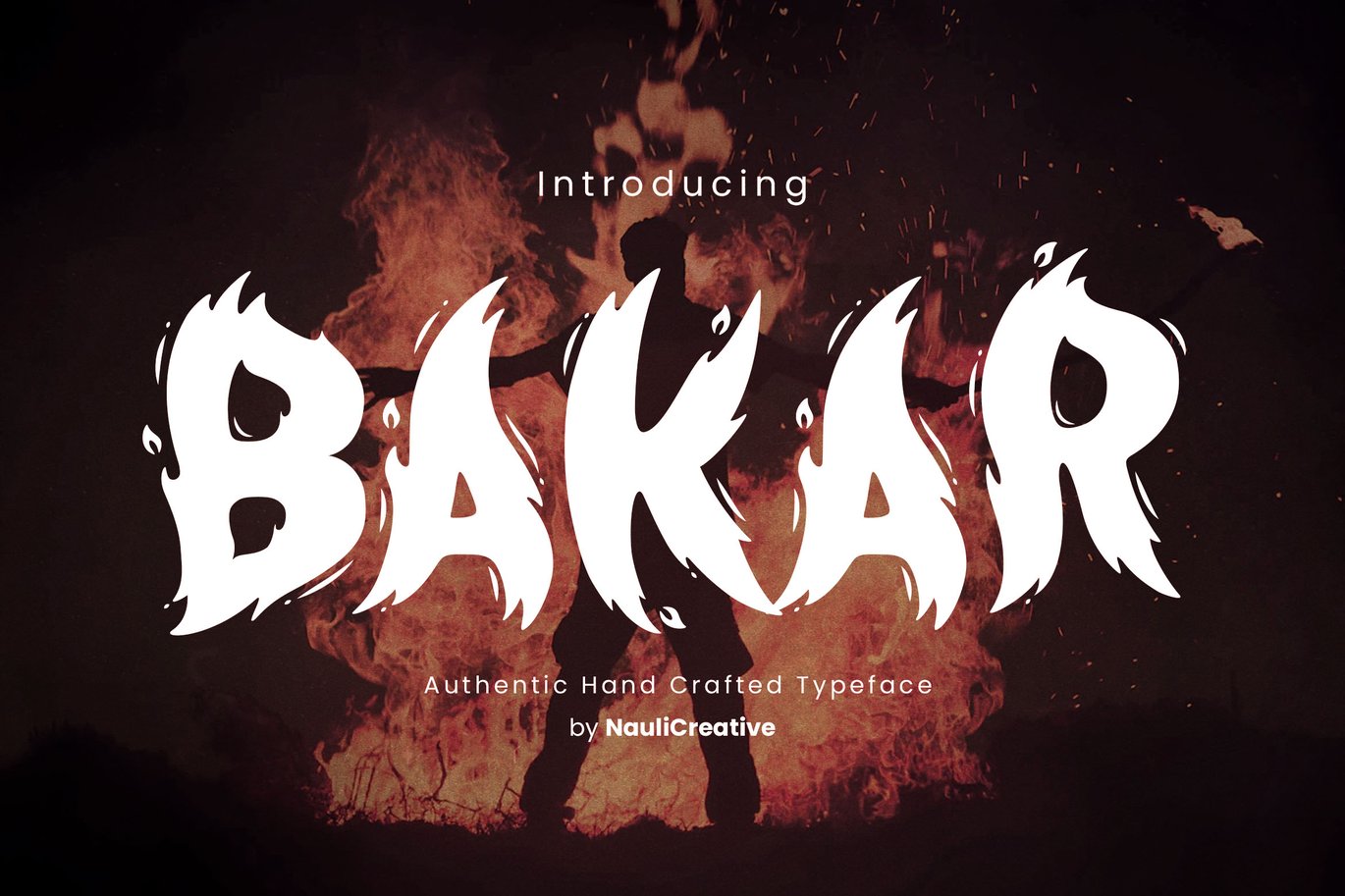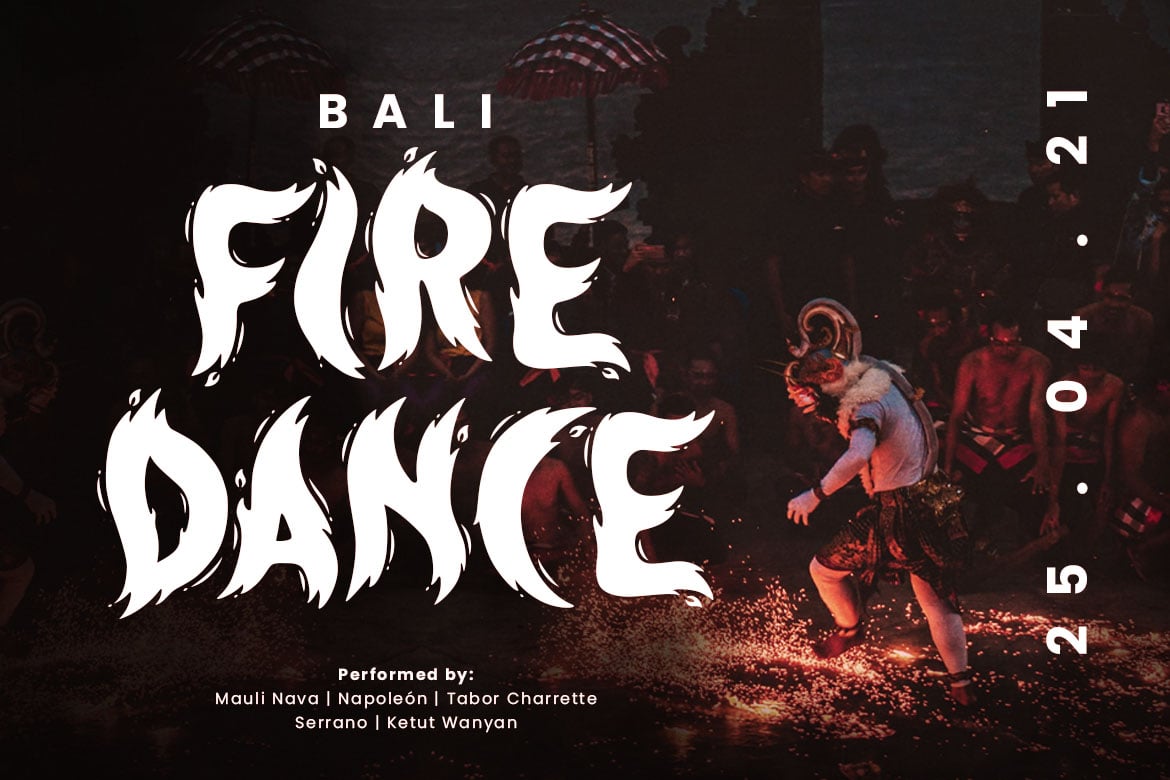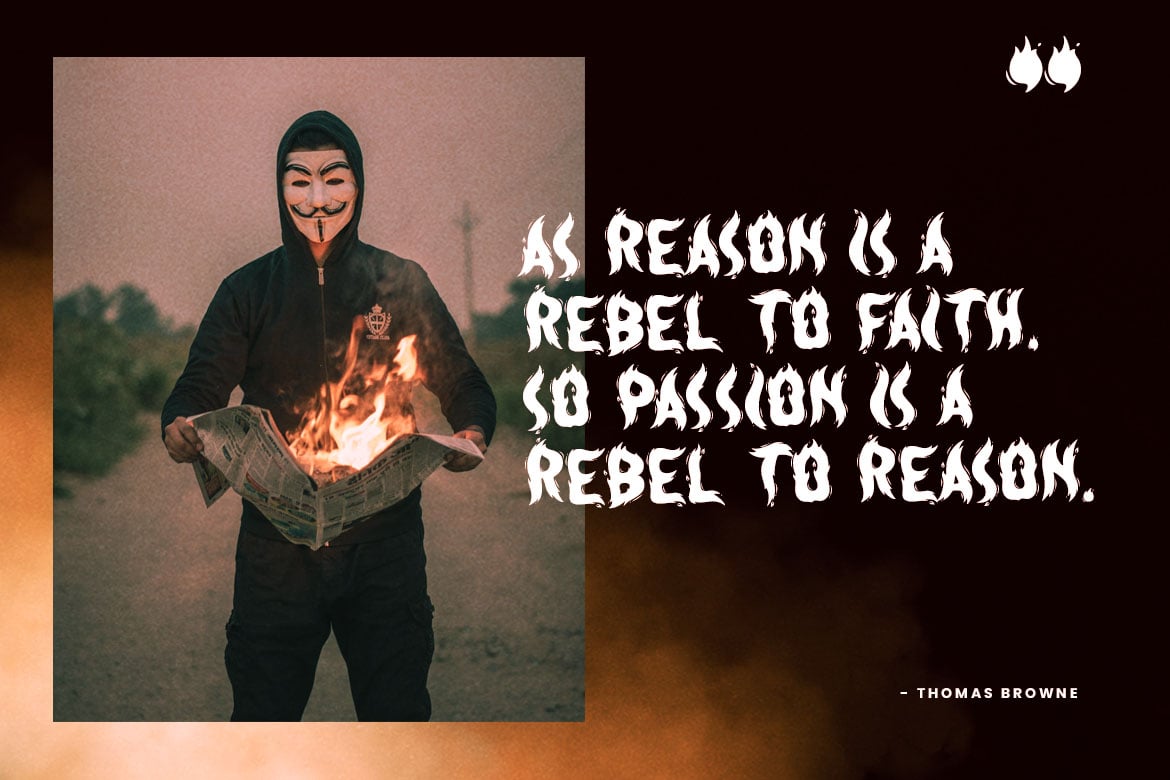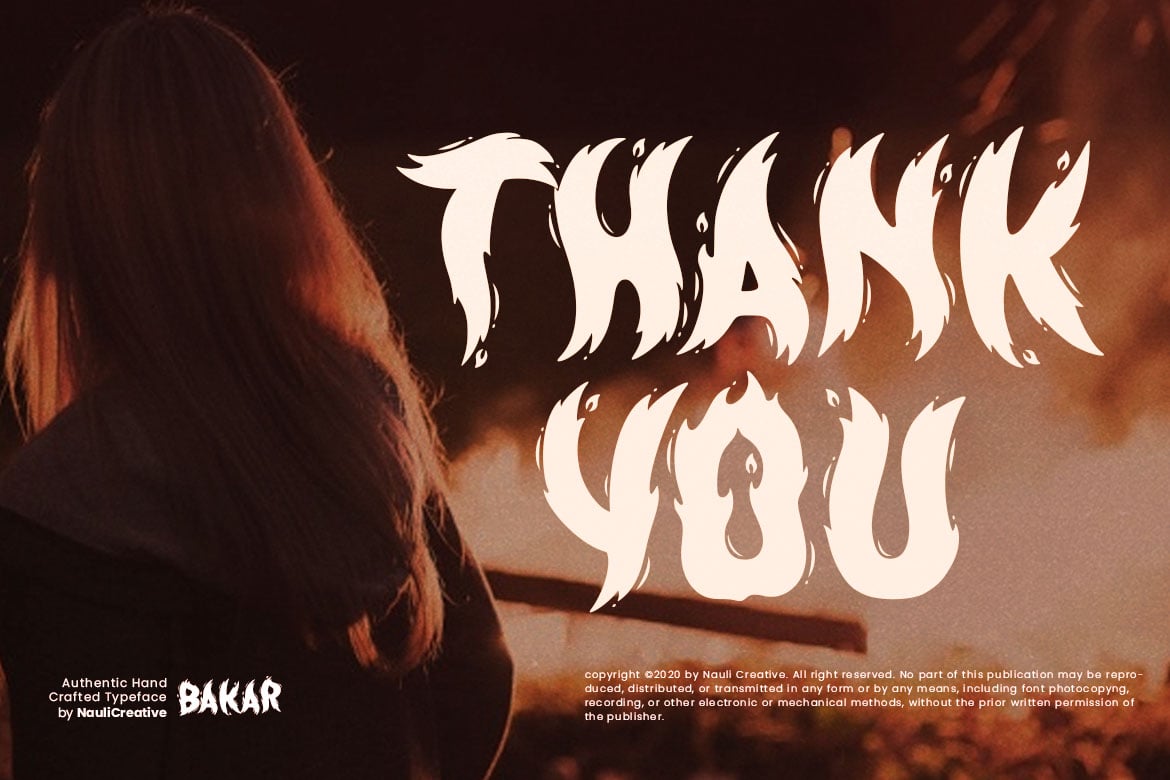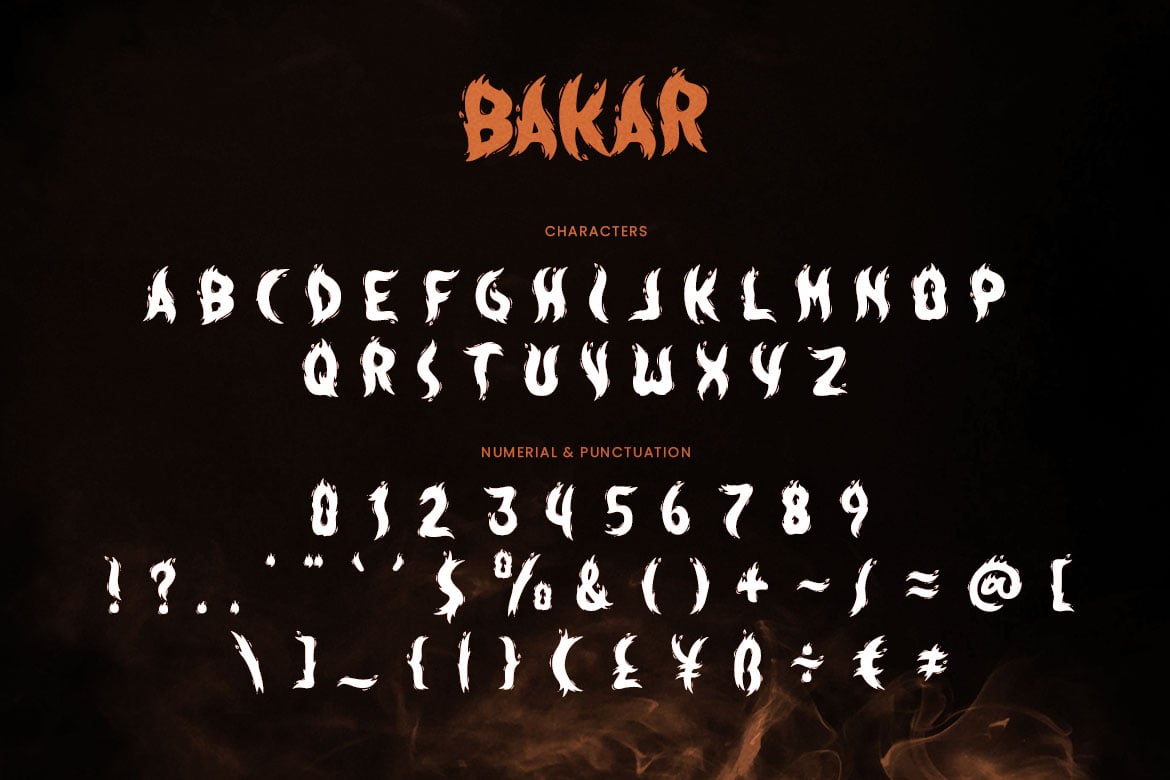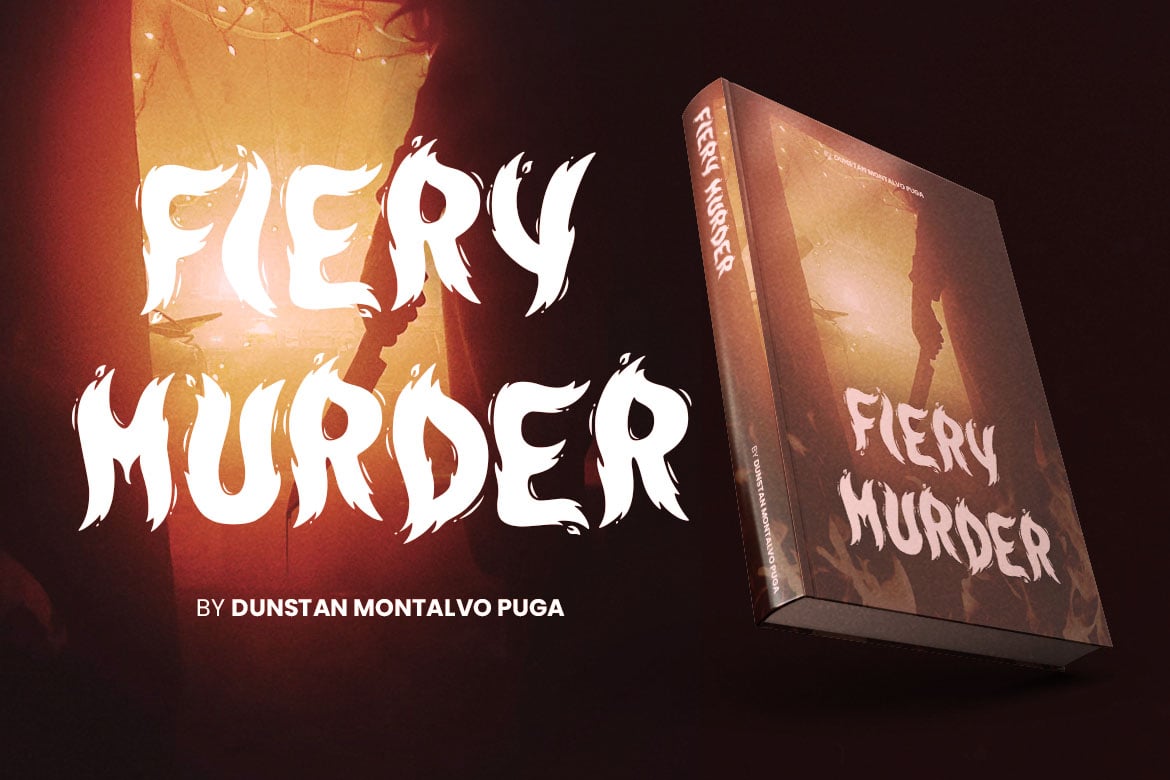
Bakar – Flaming Unique Font
Are you looking for a fancy unique flaming decorative font? We can help! Try to download our bakar font. The font is suitable to use for all purpose. Try to use it on banner ads, event, greeting card, poster, postcard, photography, branding, editorial, quote, music, travelling, and many more to see the best of it 🙂